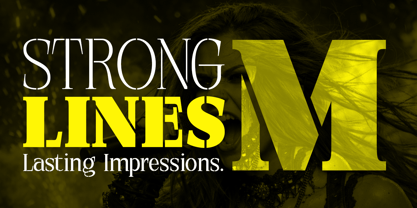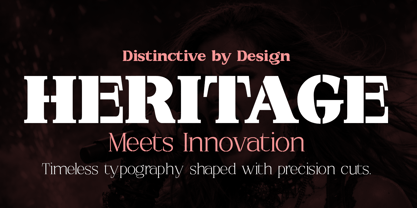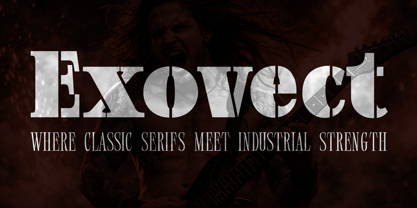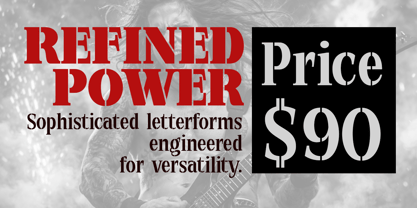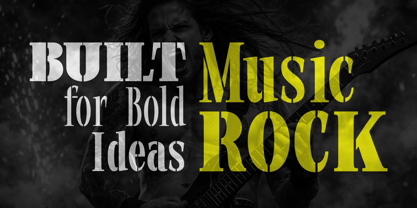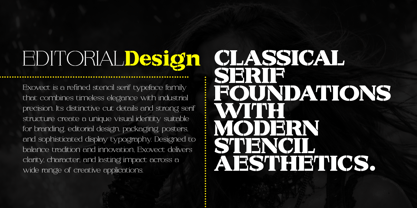
Exovect
Exovect is a powerful stencil serif typeface family designed to combine classical elegance with industrial precision. Built with distinctive cut-out stencil details and refined serif structures, Exovect delivers a strong visual identity while maintaining excellent readability across print and digital applications. Its versatile design balances tradition and modernity, making it suitable for branding, editorial layouts, packaging, posters, signage, military-inspired graphics, luxury projects, and contemporary display typography.
With a comprehensive collection of 50 fonts, Exovect provides extensive typographic flexibility through a wide range of weights and styles. From delicate, sophisticated thin weights to commanding black styles, each font preserves the family’s signature stencil character while adapting to different visual requirements. The carefully engineered proportions, sharp serifs, and precise stencil cuts create a distinctive rhythm that stands out in headlines while remaining functional in larger text settings.
Exovect is crafted for designers seeking a typeface that conveys authority, craftsmanship, and originality. Whether used in premium branding, historical-inspired designs, industrial aesthetics, fashion campaigns, or impactful editorial compositions, Exovect offers a timeless serif foundation enhanced by bold stencil personality.
Features
• Serif Stencil Typeface
• 50 Font Family
• Multiple Weights and Styles
• Elegant Yet Industrial Appearance
• Strong Display Performance
• High Readability
• Multilingual Support
• Uppercase & Lowercase
• Numerals & Punctuation
• OpenType Features
• Professional Kerning
• Suitable for Print and Digital Use
Recommended Uses
• Luxury Branding
• Editorial Design
• Magazine Headlines
• Packaging Design
• Posters & Advertising
• Military & Industrial Themes
• Fashion Branding
• Logo Design
• Book Covers
• Signage Systems
• Corporate Identity
• Creative Projects